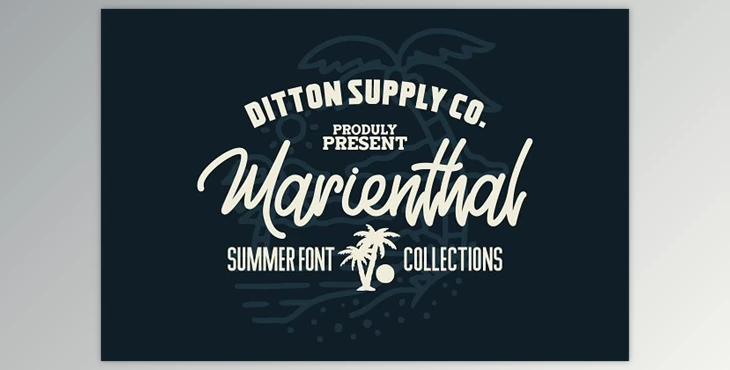
Marienthal Font Bundle + Extras: Marienthal Font Family comprises 4 Fonts and the Summer Collection with distinct styles. However, they are perfect when combined to make your unique design using this font for all purposes that require t-shirts, signs, or stickers, logos posters, magazines, marks, headings and logos and quotes, apparel design invitations, flyers packaging for products, greeting cards Book cover, and other things.
It's four fonts released in a single package instead of each being released independently—four Fonts, 90+ Vector Illustrations of Summer, and 15 logo templates.
The designs and images on the poster utilize the Marienthal Font family!